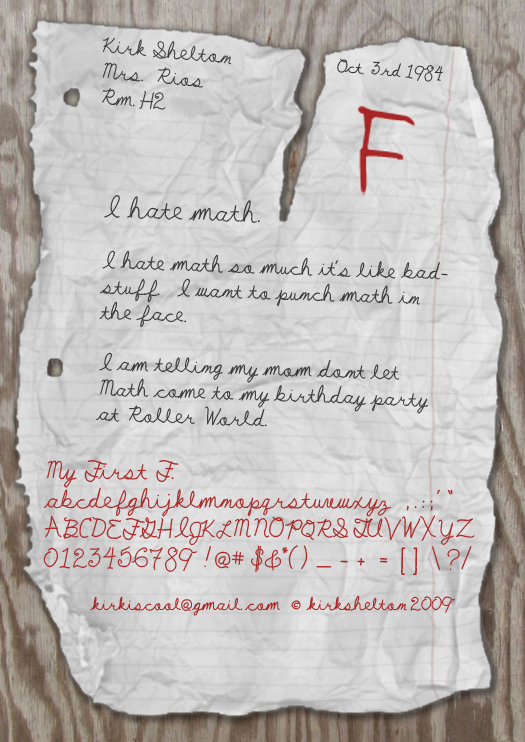
My First Ft by Kirk Shelton of High-Logic is a free monoline calligraphy font with the ease of informal handwriting. Long loops and sweeping joins give the letters a lively, continuous flow. The stroke stays fine and fluid throughout.
Packaging is a natural setting for its personal, handwritten manner, especially for beauty products or small-batch foods. It also suits wedding invitations and fashion branding that favor graceful lettering over formal penmanship. The recurring loops can echo ribbon, thread, or hand-drawn flourishes in those designs.